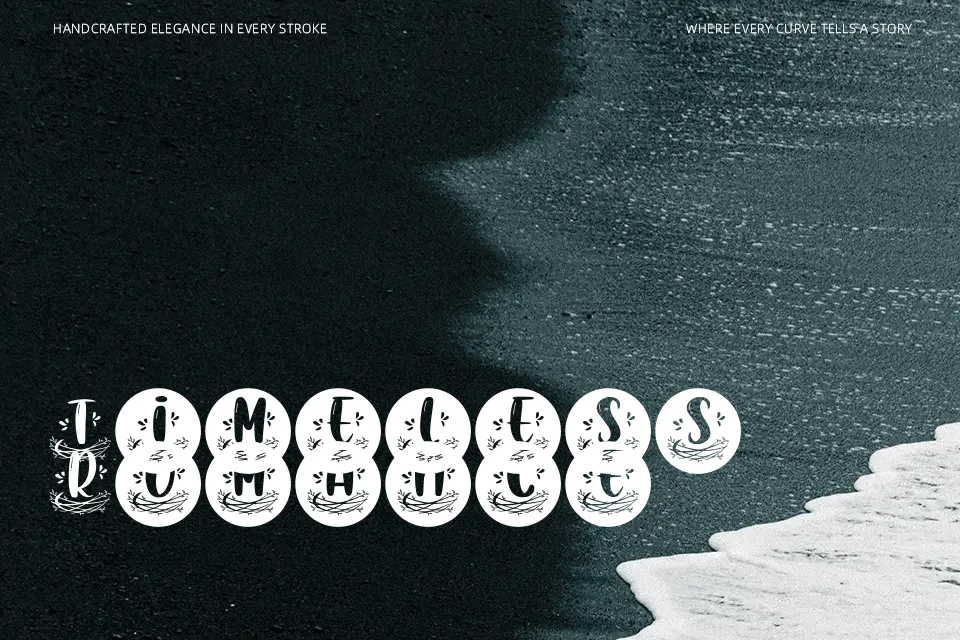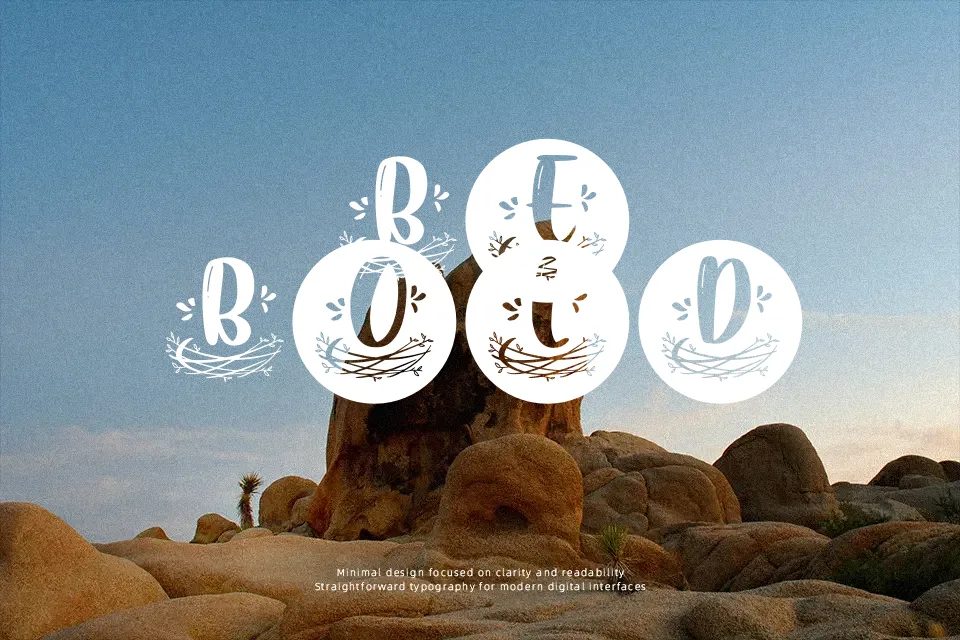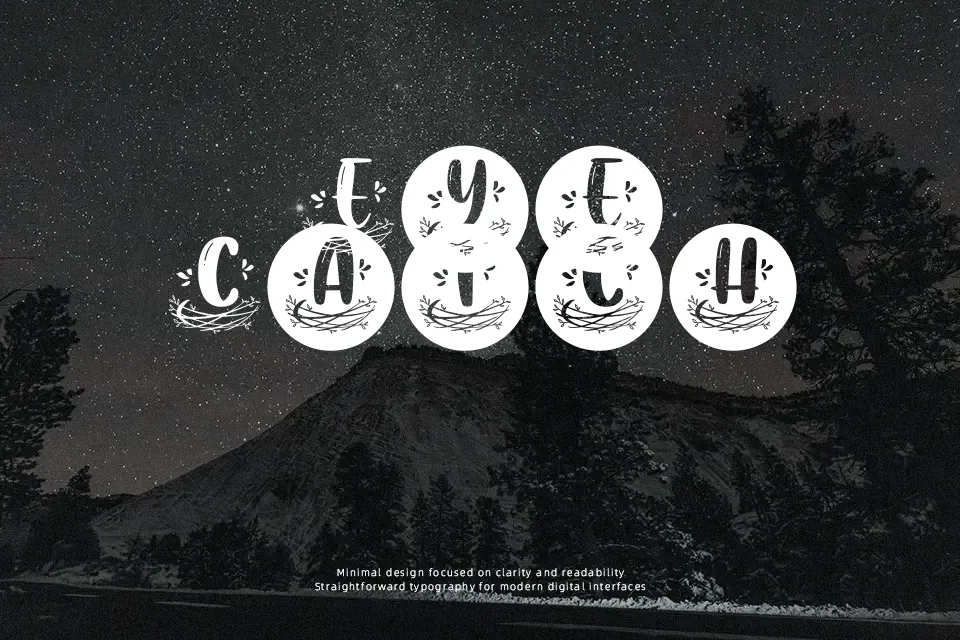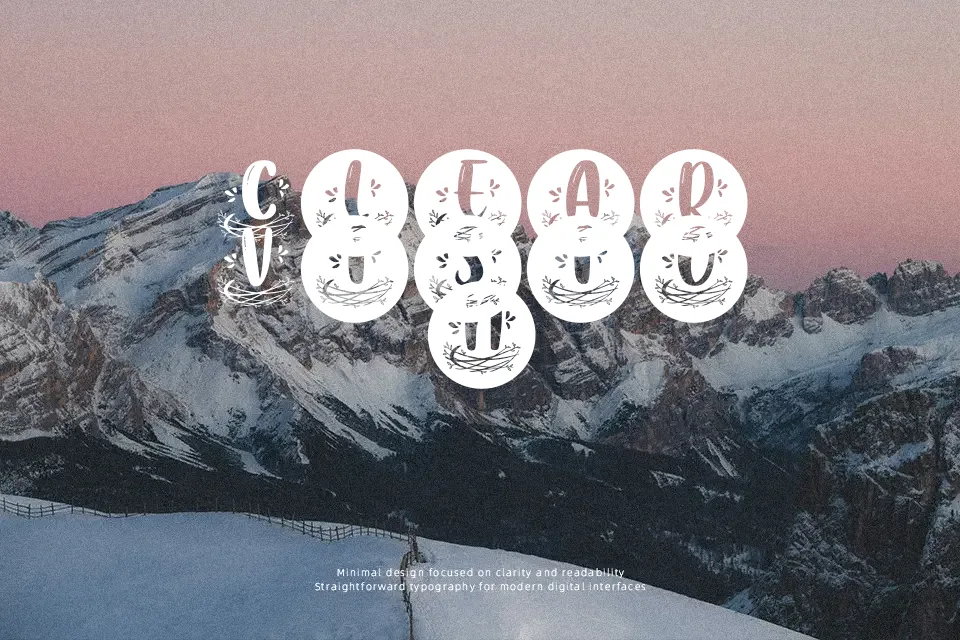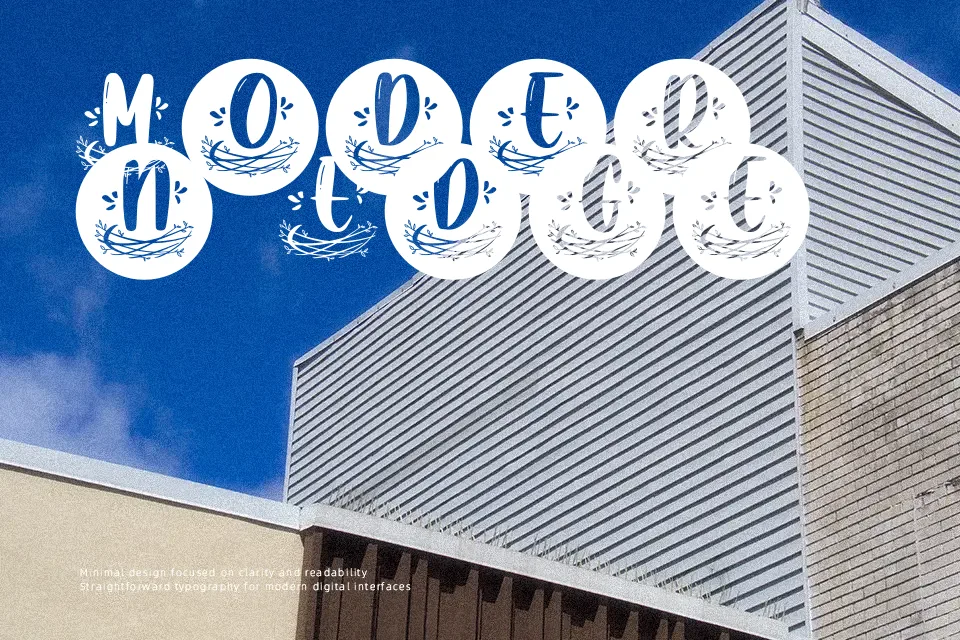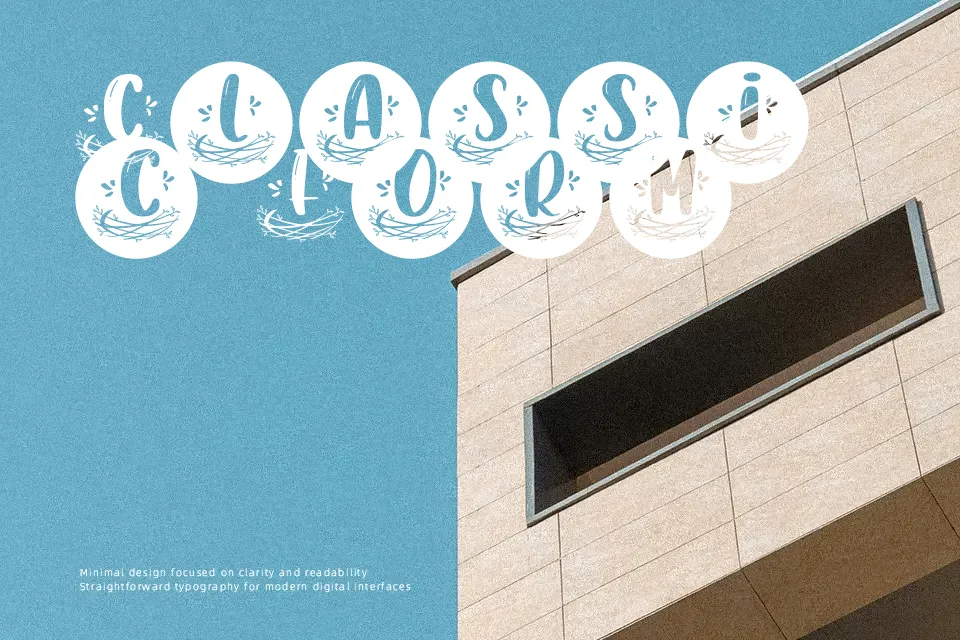
Nest Monogram Font
Designed by Abo Daniel Studio
Letterforms are presented as initials enclosed within an ornate wreath-like border, so each glyph reads as a self-contained emblem rather than standard text. Strokes appear fairly bold and consistent, with dense decorative curves that give the shapes a compact, display-focused feel. Spacing between elements is tight, and the interior detailing reduces clear separation, which makes the design visually engaging at larger sizes but less comfortable for extended reading. It functions best when used for single-letter marks, short monograms, or focal initials on invitations, packaging, or logos, where the enclosed structure can become a centerpiece. At smaller sizes or in long lines of text, the ornamental nest around each character can crowd the letterforms and reduce quick legibility, so it is not suited to body copy or information-heavy layouts.
wedding invitation monograms,boutique logo marks,personalized gift packaging labels,stationery headers featuring initials
long paragraph text,legal or technical documents,dense ui labels,small captions or footnotes
Perfect for headline, logo, and packaging, with a artistic and decorative style.